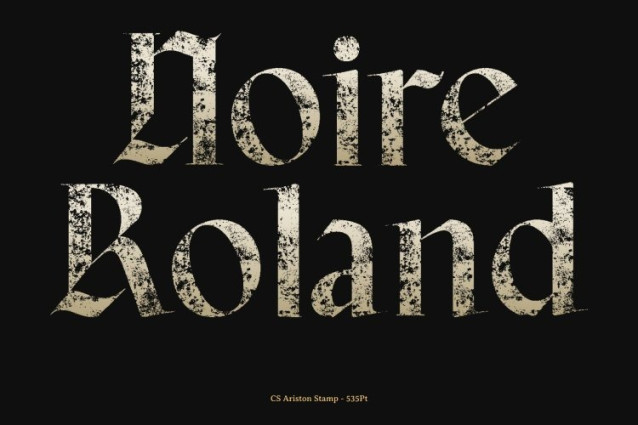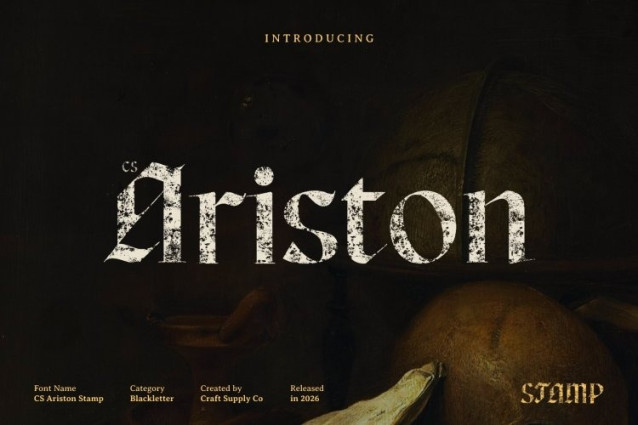
CS Ariston Stamp Font
CS Ariston Stamp Font This is a display serif font rooted in the rich tradition of classic Blackletter typography. Its intricate letterforms and carefully crafted details reflect historical craftsmanship, while strong, confident strokes give the font a commanding and elegant presence suited for bold visual statements.
Bold Structure for Dramatic Impact
Defined by thick strokes and dramatic contrast, this font delivers a powerful and authoritative look. The bold construction enhances visibility and impact, making it ideal for luxury branding, formal invitations, editorial headlines, and designs that require a sense of prestige and importance.
Vintage Stamp Texture with Historical Character
The stamp effect adds worn edges, subtle distress, and textured imperfections that bring an authentic vintage feel to the font. This aged character enhances the historical essence of the Blackletter style, creating an artistic, old-world impression reminiscent of traditional print and handcrafted lettering.
Perfect for Gothic and Themed Designs
Whether applied to medieval-inspired projects, heritage branding, ceremonial designs, or expressive visual identities, this font blends tradition with bold elegance. Its fusion of classic Blackletter form and vintage stamp texture makes it a compelling choice for designs that seek timeless sophistication, strength, and historical depth.